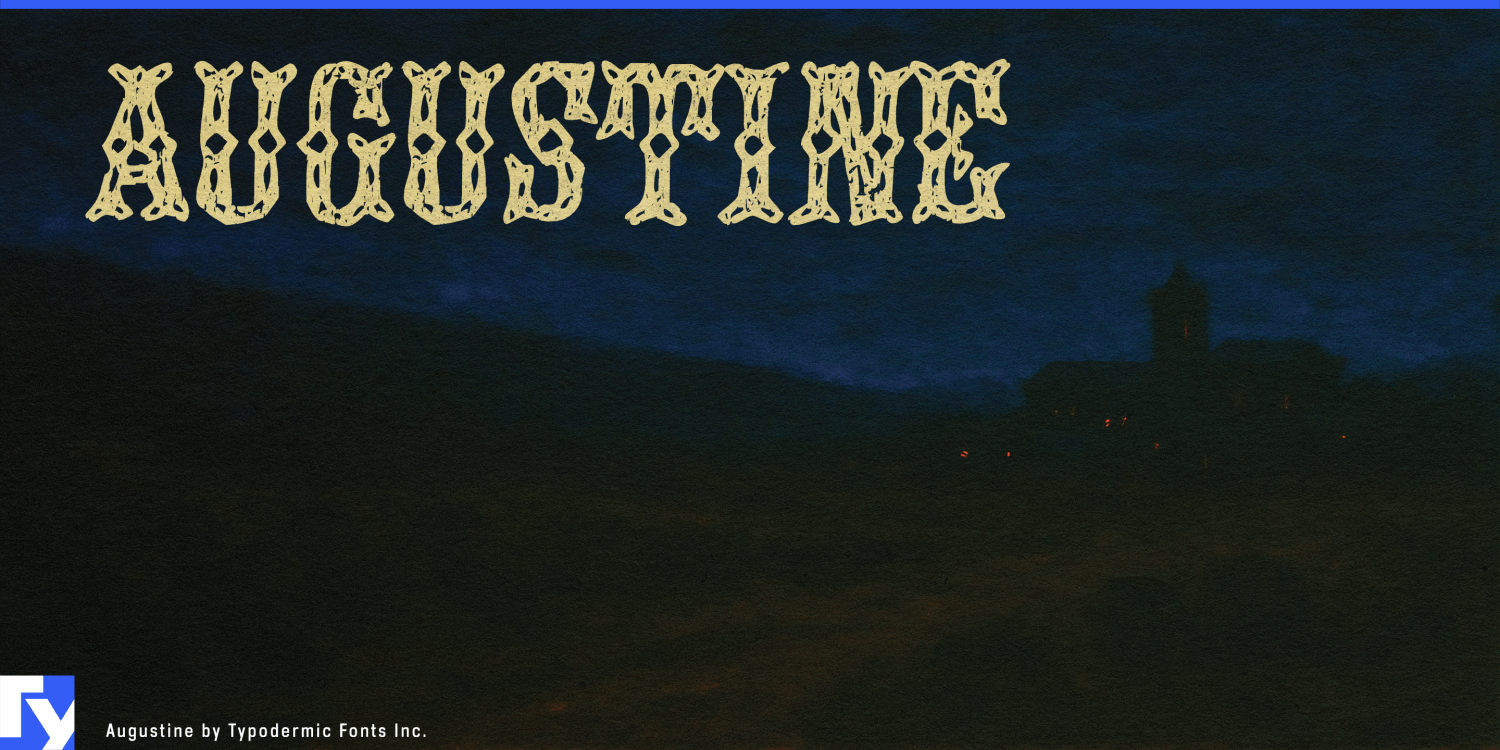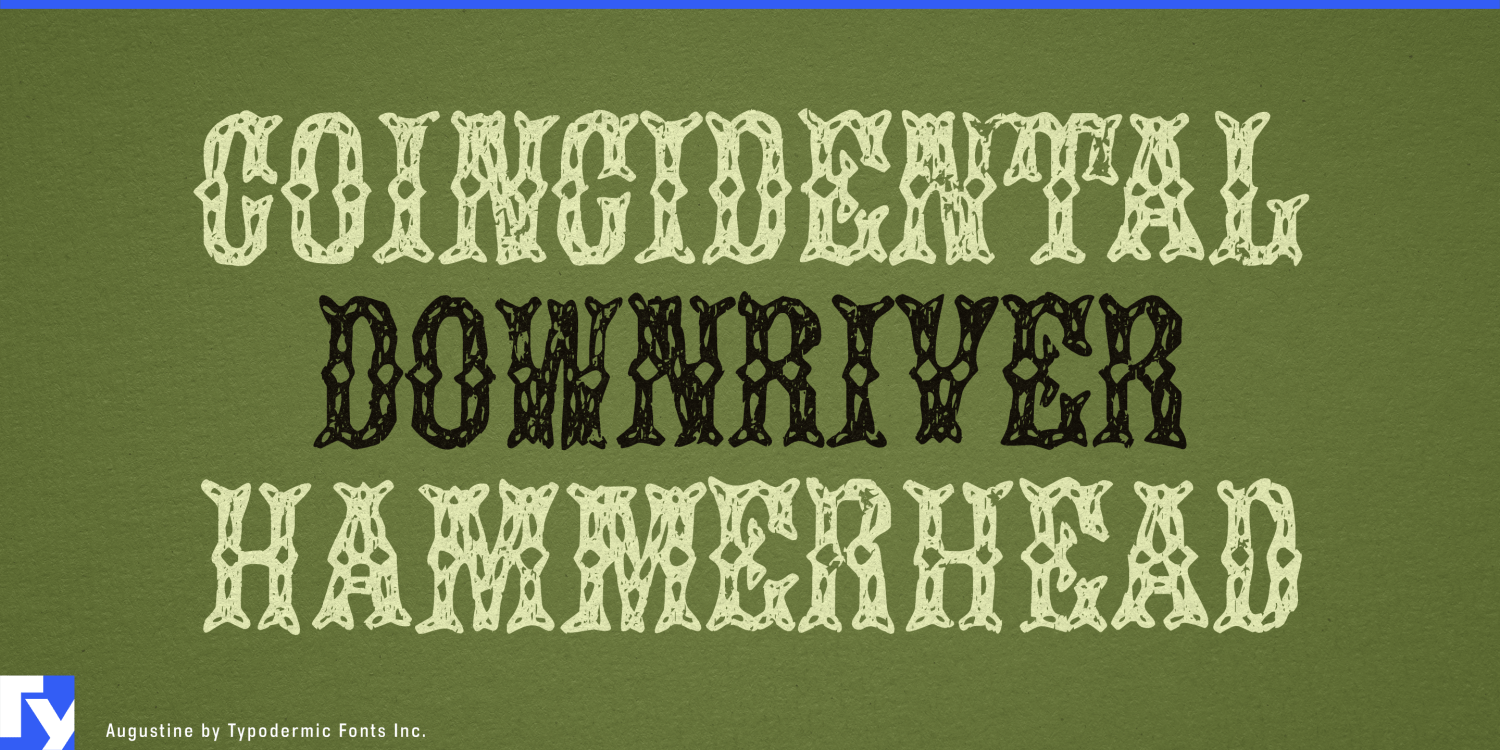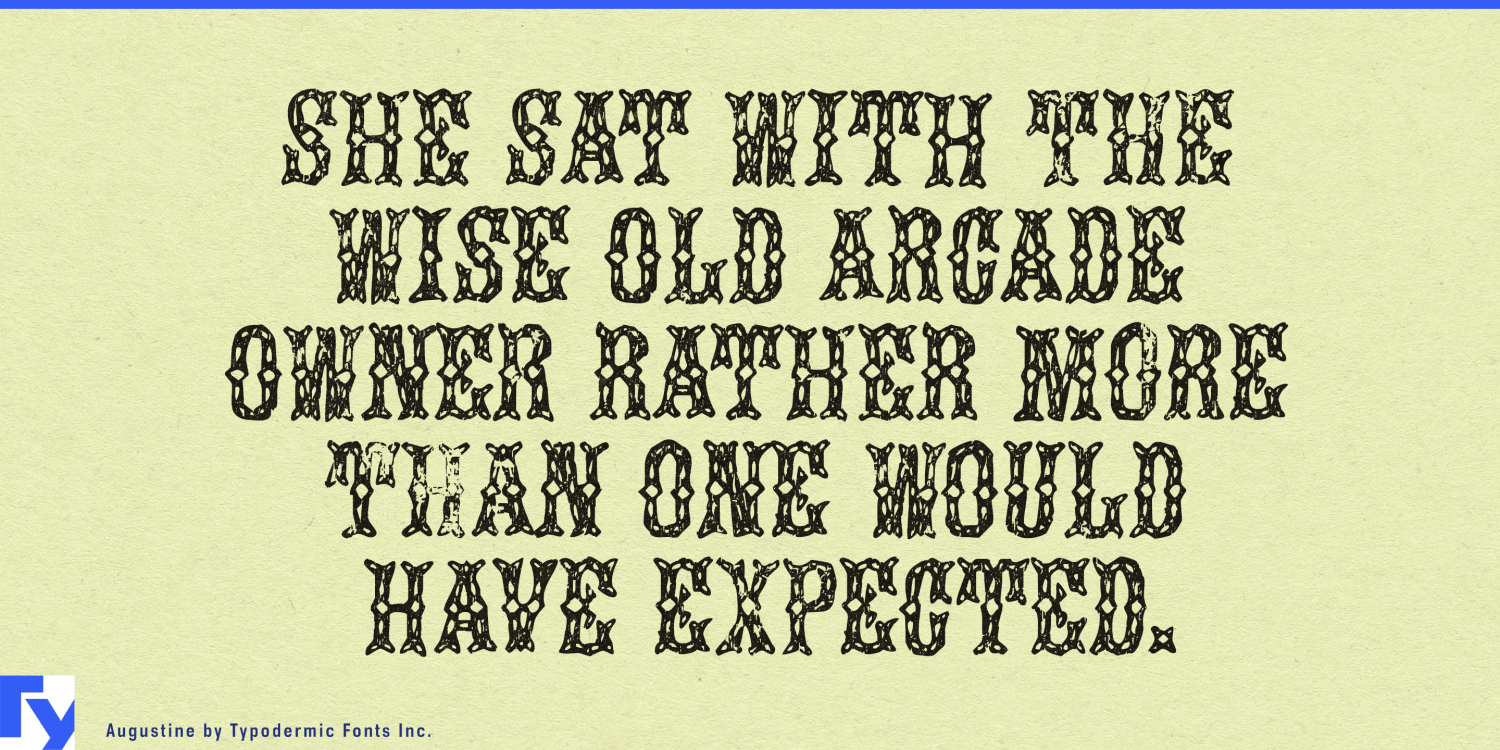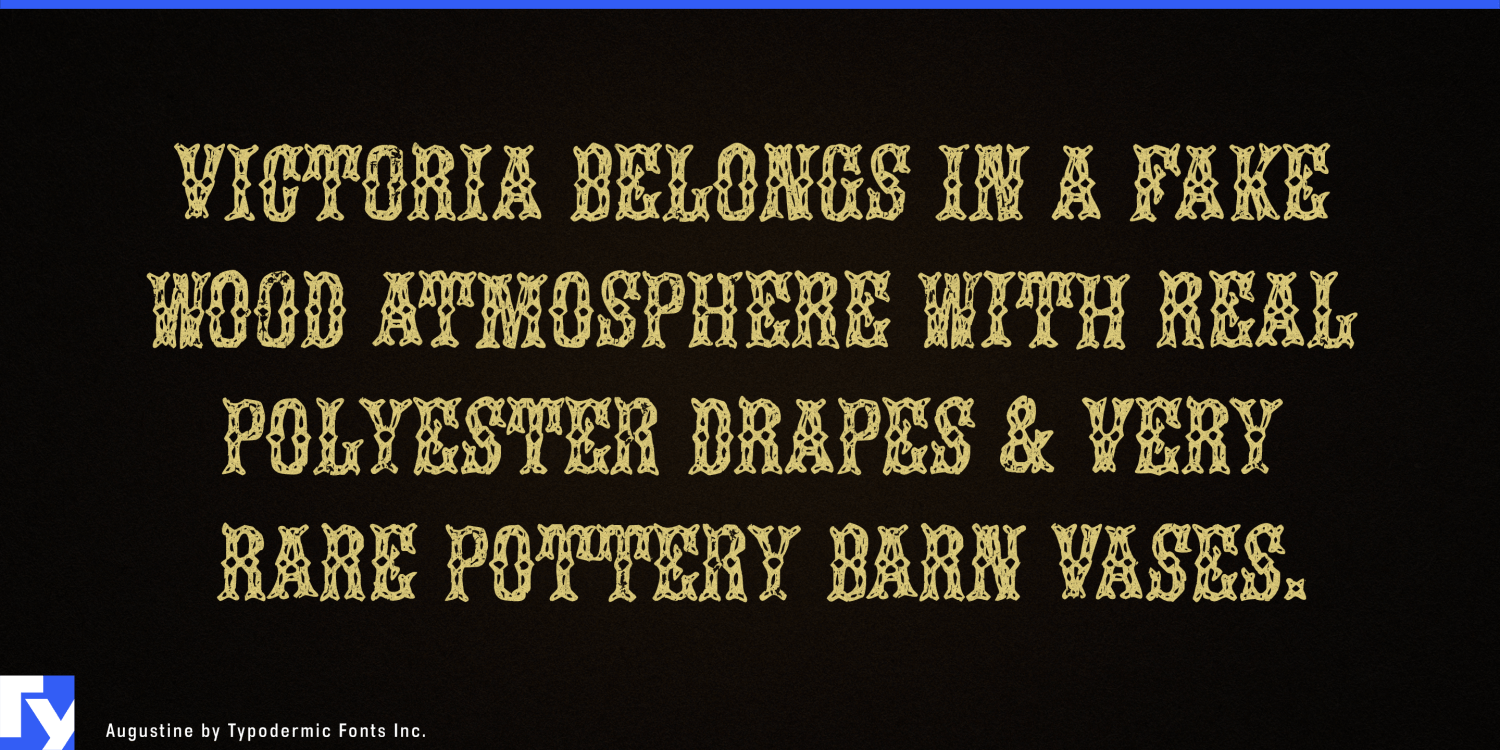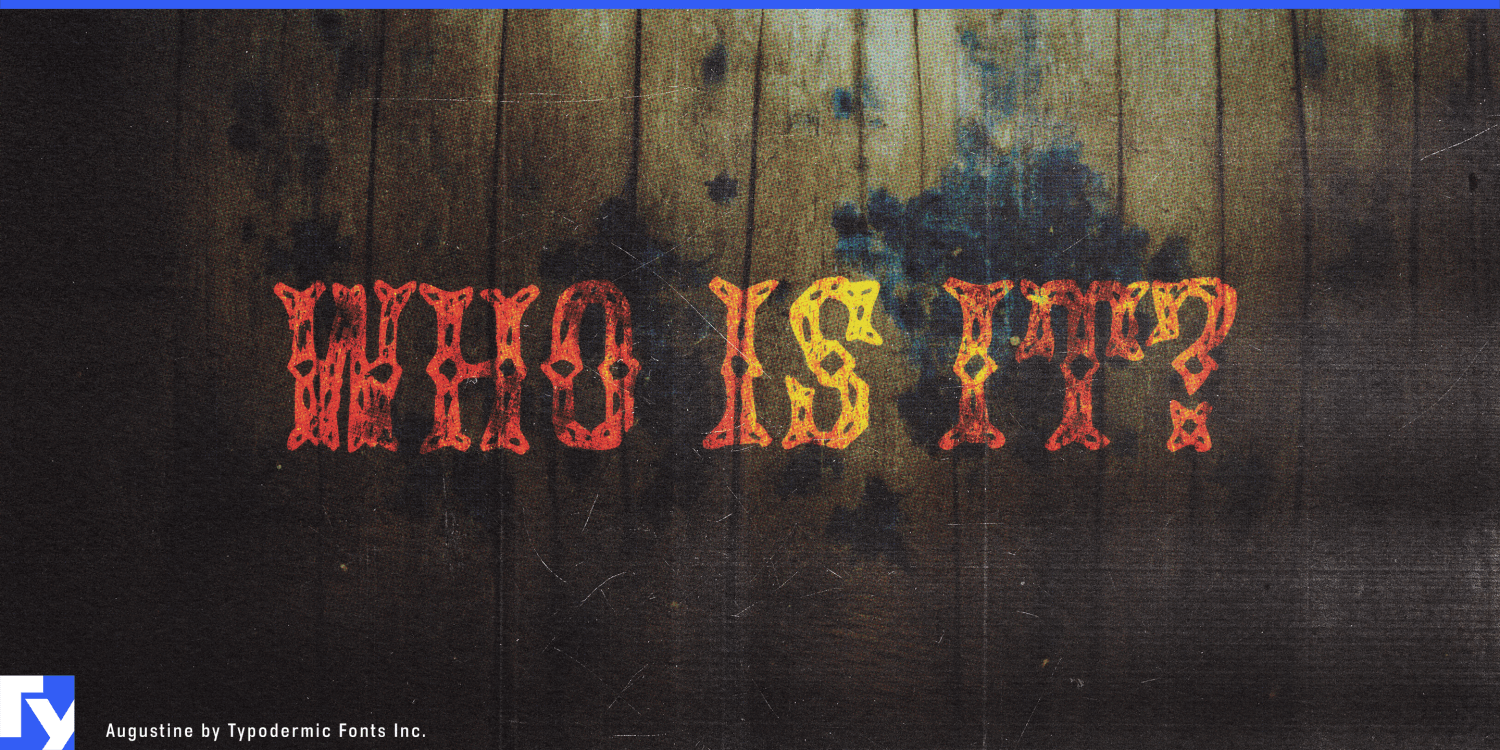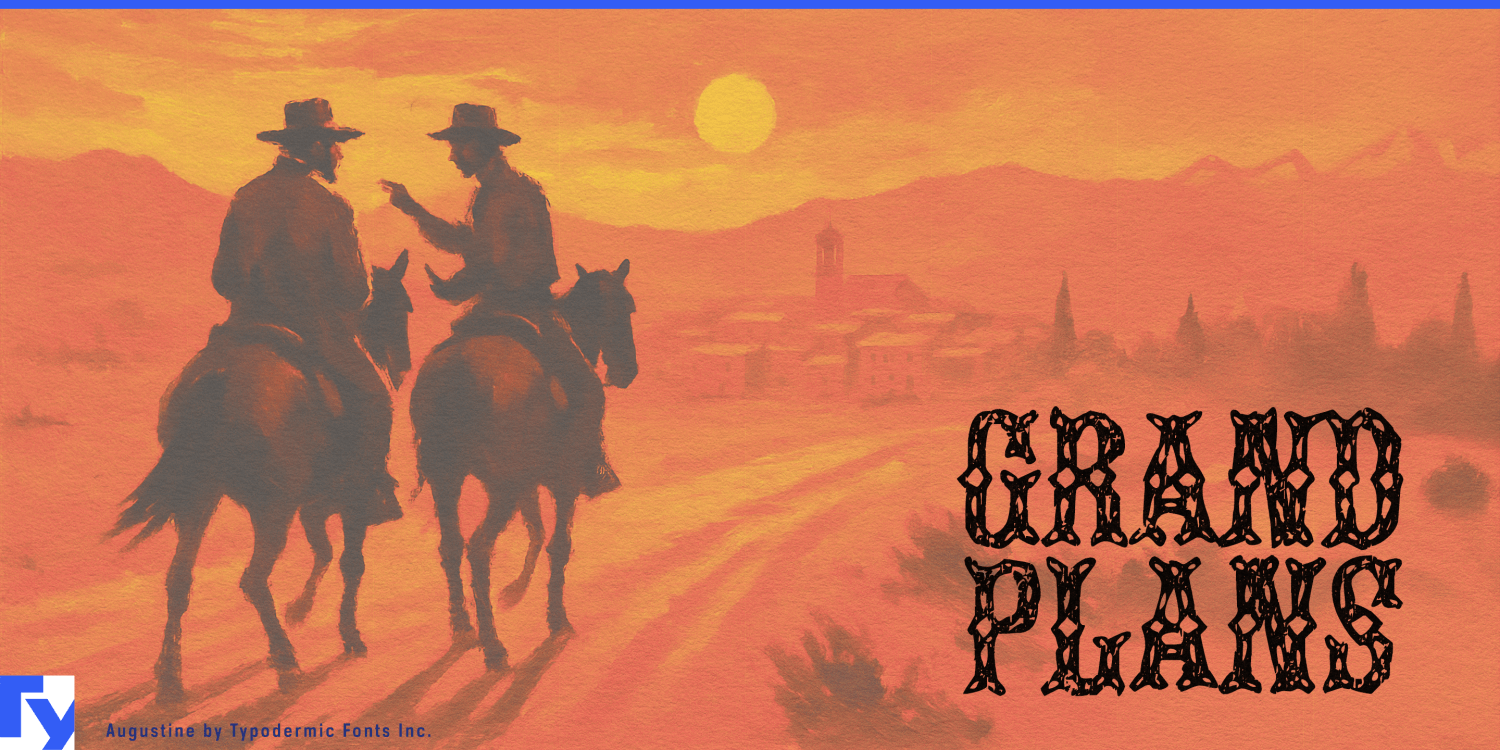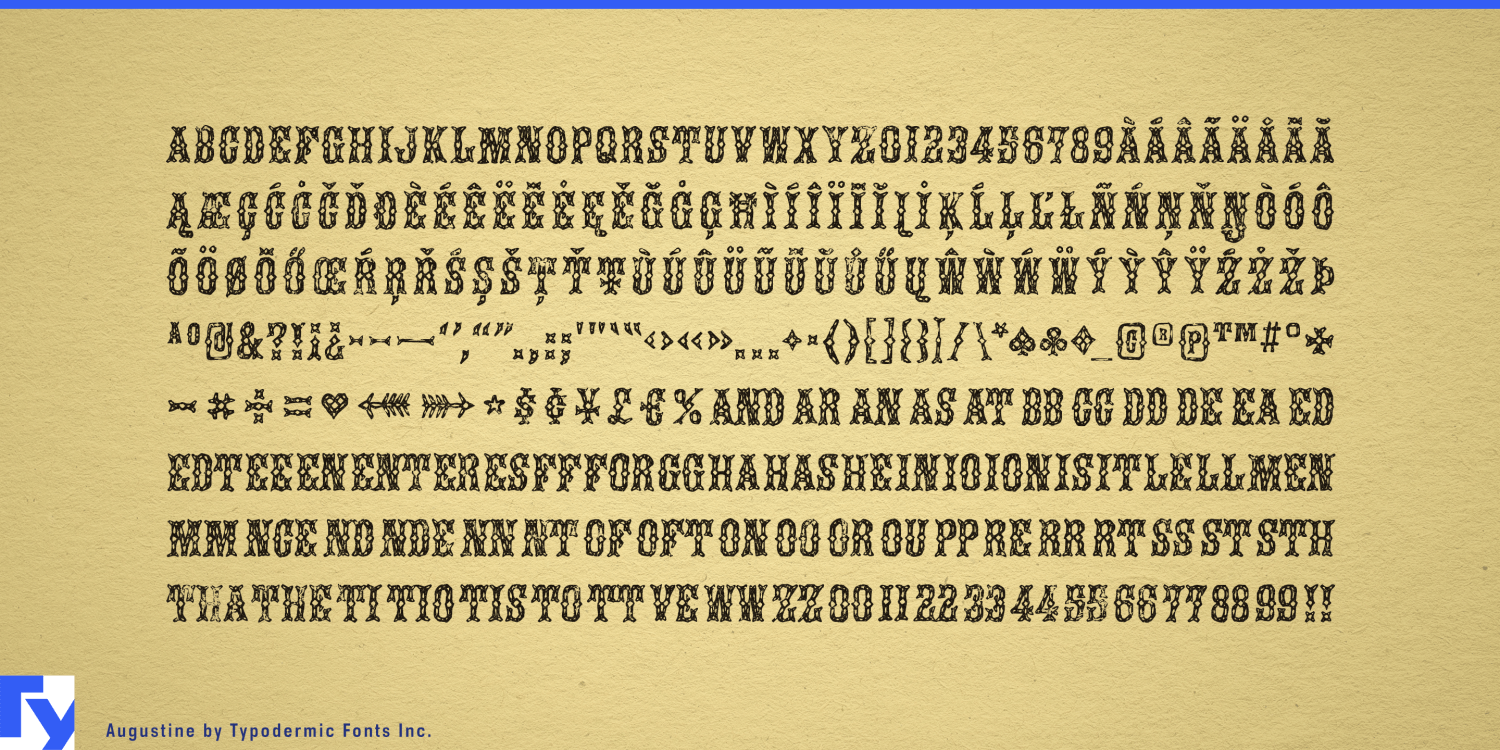
Augustine
Font Family by Typodermic
Western typography has no trouble establishing a setting. Tuscan letters, slab serifs and old wood-type forms can put a design on the frontier almost instantly. The problem comes when the frontier is supposed to feel wrong. Conventional Western lettering can make supernatural entertainment look nostalgic rather than threatening; conventional horror typography can erase the historical setting. Augustine occupies the uneasy ground between them.
Its underlying forms are unmistakably Tuscan, but the printing appears to have suffered some unexplained damage. Swollen edges, incomplete impressions and irregular ink give the letters the look of something stamped, mishandled and rediscovered later. Alternate letter combinations help repeated characters avoid the mechanical duplication that can undermine distressed type.
That makes Augustine especially useful for weird Western entertainment. Supernatural frontier games, occult Western films, alternate-history stories and horror series can use it for titles, settlement names, factions and chapter headings that need to communicate both period and menace. A cleaner companion face can handle menus, subtitles and narrative text; Augustine marks the places and names where the world has gone bad.
Immersive horror presents the same problem in physical space. Theme-park Halloween events, haunted attractions and large-scale horror experiences can use Augustine for cursed mining towns, abandoned frontier settlements, ghost-town zones, entrance graphics, merchandise and campaign imagery without falling back on ordinary saloon lettering with a horror treatment added afterward.
Horror, investigation and folk-horror games can push the idea beyond the frontier when the setting still calls for damaged historical printing. Cult names, forgotten businesses, old institutions, artifact labels and recovered commercial signs can use Augustine as part of the fictional evidence rather than merely as decoration.
Augustine is not a general-purpose Western face. Its niche appears when the brief already contains a contradiction: frontier lettering that has begun to decay, familiar Americana with something visibly wrong underneath it, or historical display typography that seems to have survived contact with the story itself.